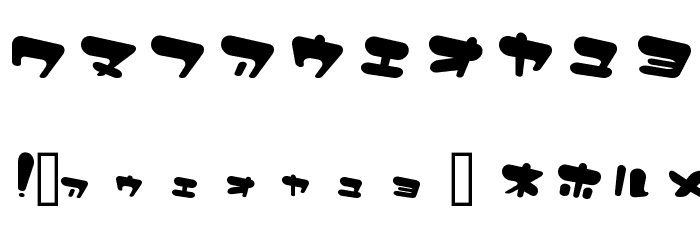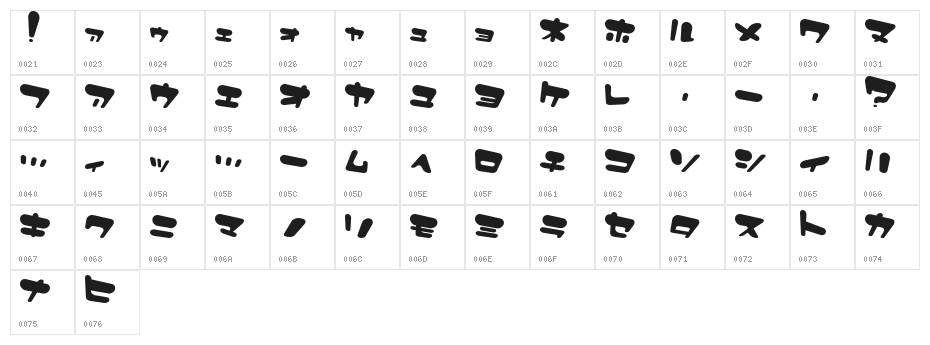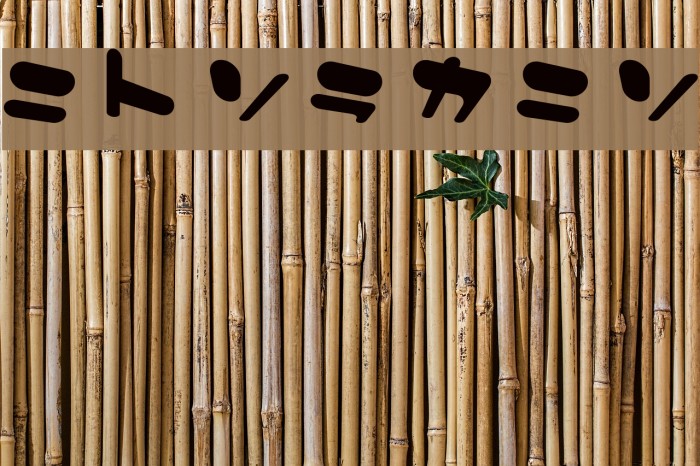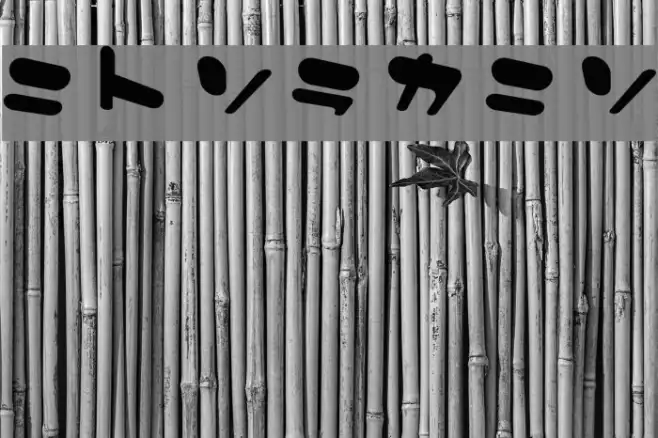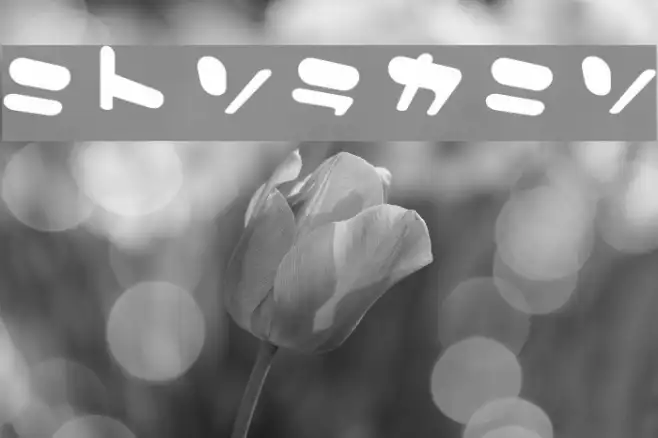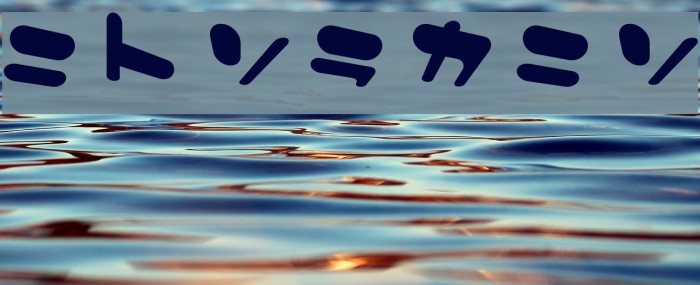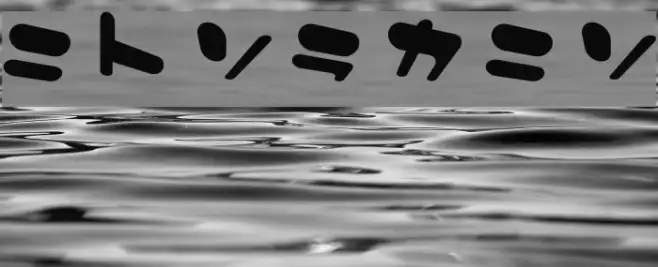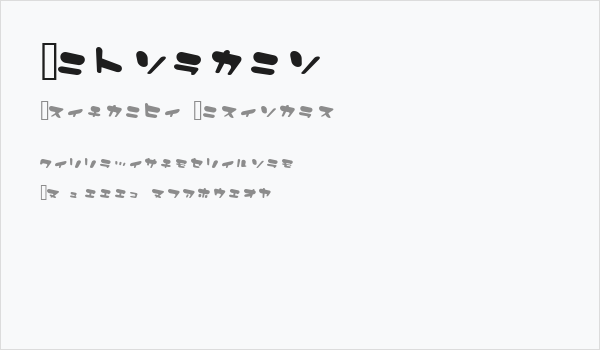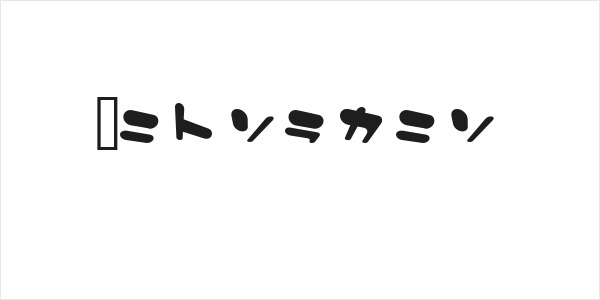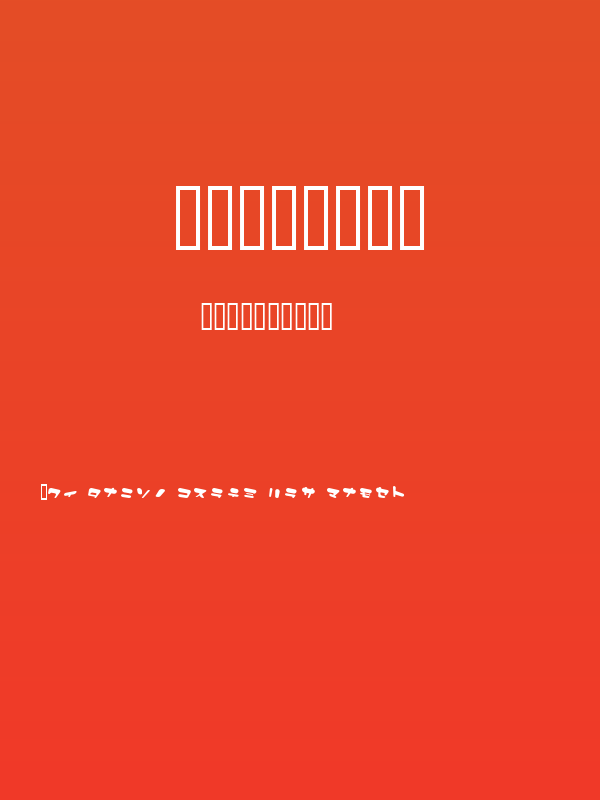
Discotic Font
Discotic Description
This font features a bold and playful style with a distinctively rounded and thick appearance. The characters are designed with a sense of movement and energy, making them stand out with their unique, almost cartoonish flair. The uppercase letters are bold and blocky, while the lowercase letters maintain a consistent rounded form, giving the font a cohesive look. The numerals and special characters follow the same playful design, ensuring uniformity across all elements. This font's style is both eye-catching and approachable, making it suitable for a variety of creative applications.
| Overall Style | Playful, Cartoonish |
| Proposed Projects | Ideal for children's books, playful branding, posters, and creative digital content. |